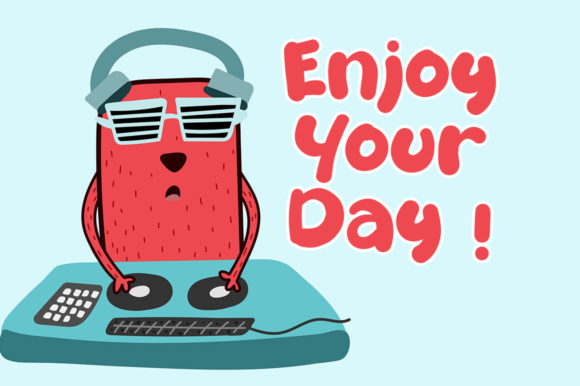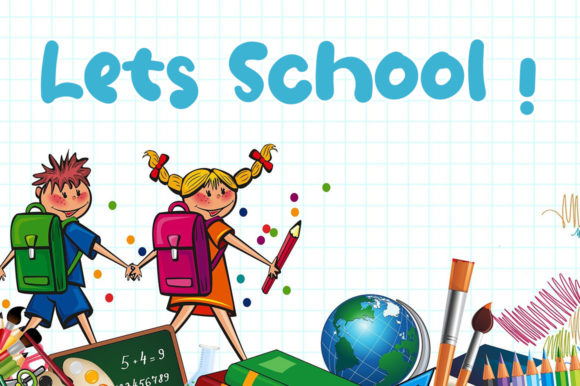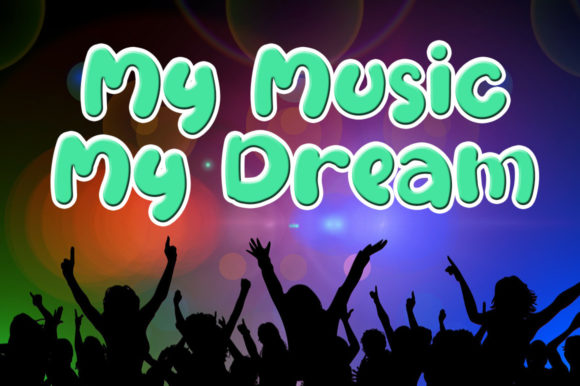
Introduction to Pop Hits Font
Pop Hits is a beautiful and sweet display font.
It is fresh, clean, and fun and fits a wide range of designs This font will look amazing in a great amount of projects, both formal and informal.